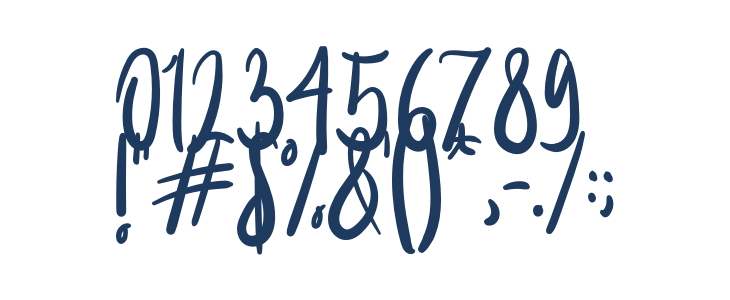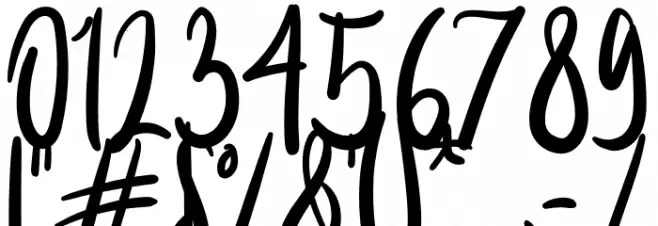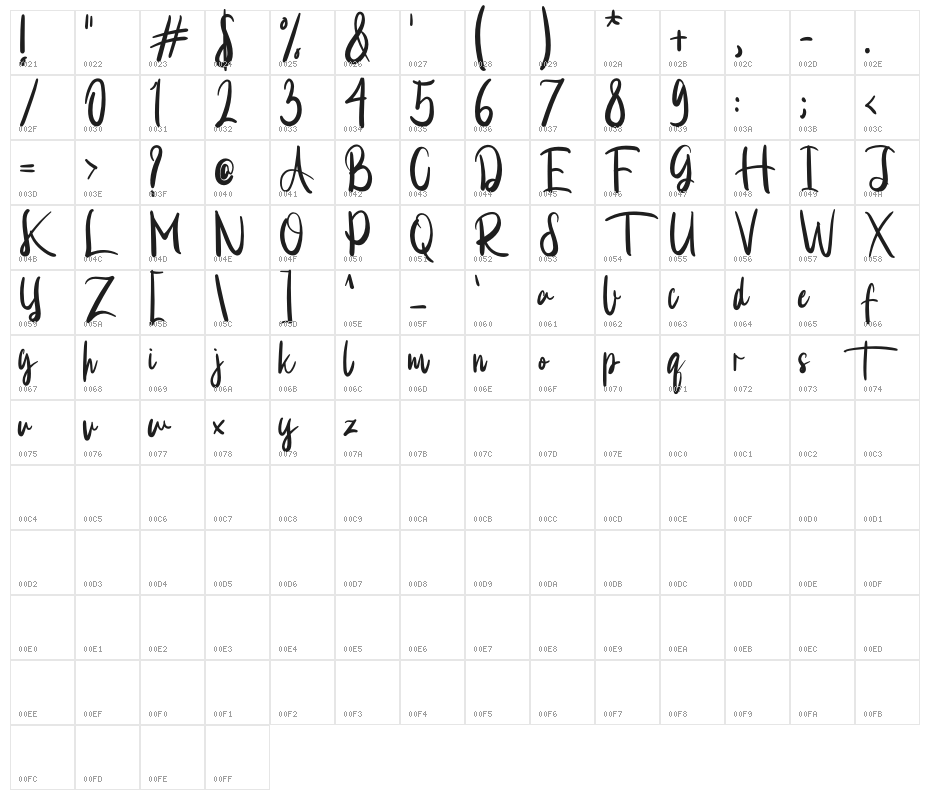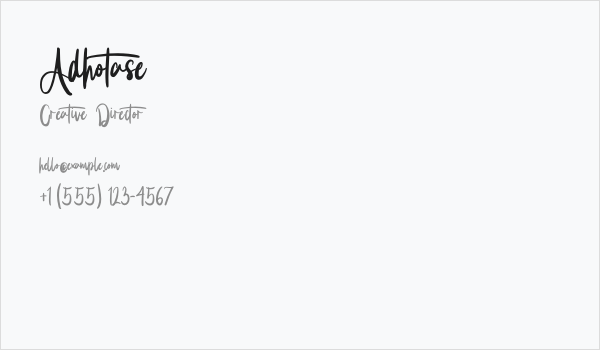
Adhotase Font
Adhotase Description
This font features a lively and energetic handwritten style, characterized by its fluid and dynamic strokes. The uppercase letters are bold and expressive, with a playful yet sophisticated flair. The lowercase letters maintain a consistent flow, enhancing readability while adding a personal touch. Numbers and special characters are crafted with the same attention to detail, ensuring a cohesive look across all elements. The overall design is modern and artistic, making it suitable for creative projects that require a personal and engaging aesthetic.
A lively, handwritten font with fluid and dynamic strokes from Uncategorized fonts.
- Font: Adhotase
- Proposed Projects: Ideal for greeting cards, invitations, branding, and social media graphics.
- Use Case: Logos, Headlines, Social Media